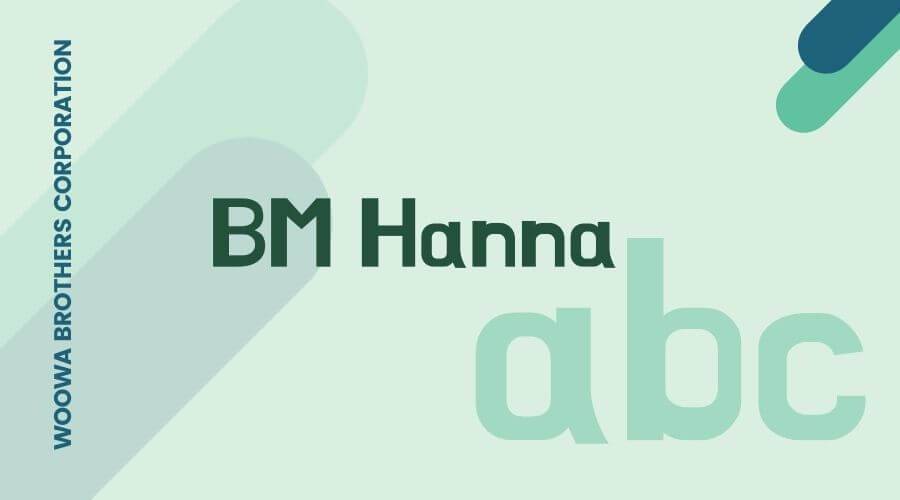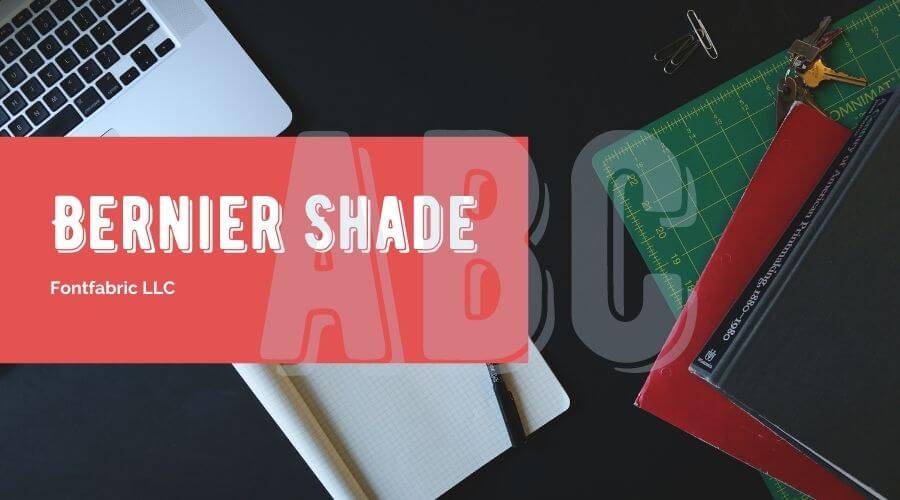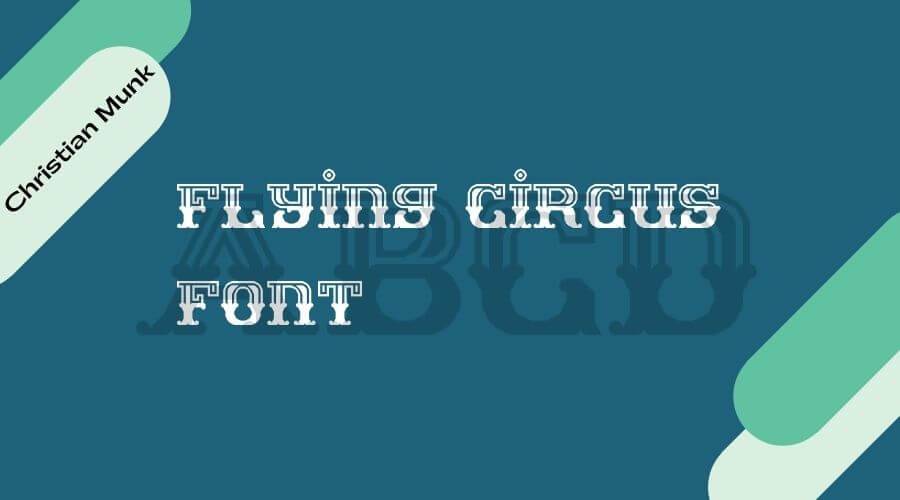
Best Free Old School Fonts
Bernier Shade Font
Bernier is a vintage font that comes with 3 different styles. Bernier regular, Bernier Distressed & Bernier Shade. Bernier Font Family designed by Font Fabric. The display typeface family is perfect for vintage badge, old school style typography, and logotype. Bernier Shade is licensed under open font license.
BM Hanna Font
Woowa Brothers has created the ‘Hanna’ font for everyone to use. BM Hanna is a bold old-school typeface font. Google also is hosting BM Hanna on Google Fonts. Hanna reflects Woowa Brothers’ kitsch and retro identity; it is reminiscent of our childhood memories of trying to draw something really nice, yet our drawing turns out to be a little rough and half-baked. This font is free for commercial use.
Flying Circus Font
Flying Circus is a playful, slab-serif font that can suggest Americana, the West, the carnival or circus. It was inspired by a “lost” analog font, Cirque, and has a full lowercase unlike many similar fonts. Designed by Christian Munk, this font is very much eye-catchy and vintage. Flying Circus is also a free font.
Graduate Font
Graduate is a high quality example of the classic college block style of lettering used across very campus in the USA. Designed by Eduardo Tunni, This font has a old school vibe and very attractive too. Being a display typeface, this font is very much user friendly. Graduate published through Google fonts and licensed under the Open Font License.
Pirou Font
Pirou is an experimental outline typeface inspired by Didot. The font contains more than 300 characters including uppercase, lowercase, numbers, symbols, ligatures and accents. Pirou is designed for large title such as logo, headline, poster. Designed by Quentin Grébeude, This font is free for commercial use.